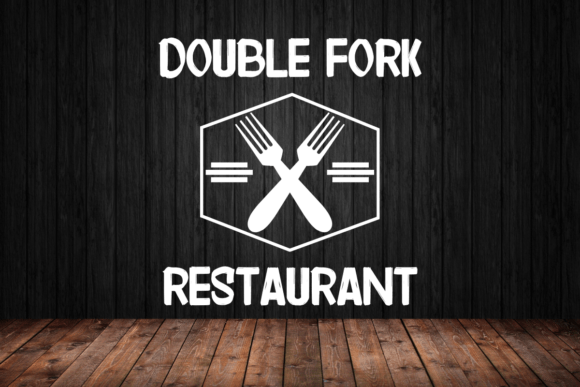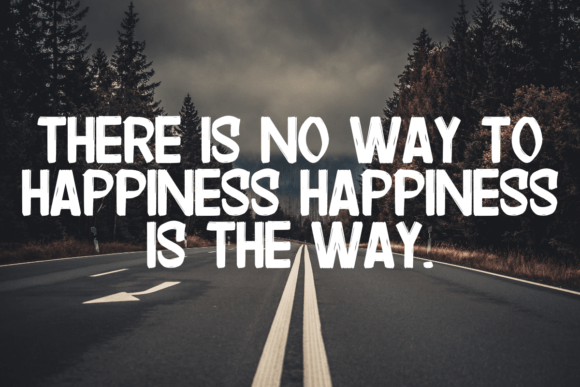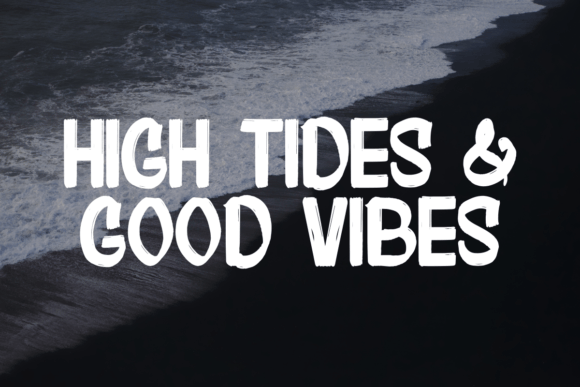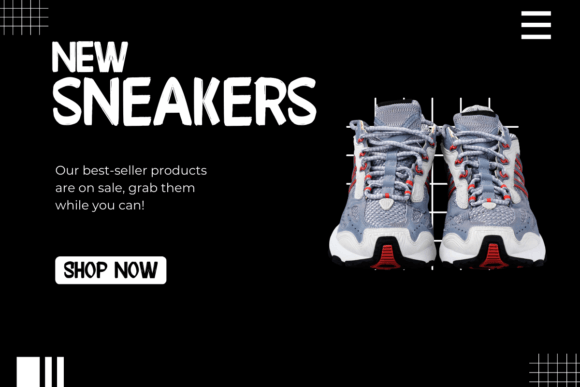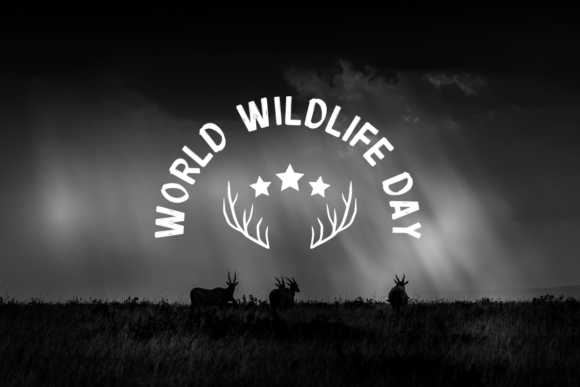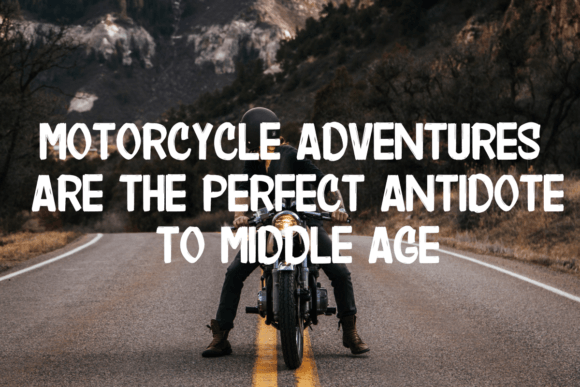
Introduction to Rockers Garage Font
Rockers Garage font is a display brush font.
It’s perfect for logos, branding, titles, social media posts, advertisements, product packaging, product designs, label, photography, watermark, special event, magazine, web designs, etc .
Key Features of Rockers Garage Font